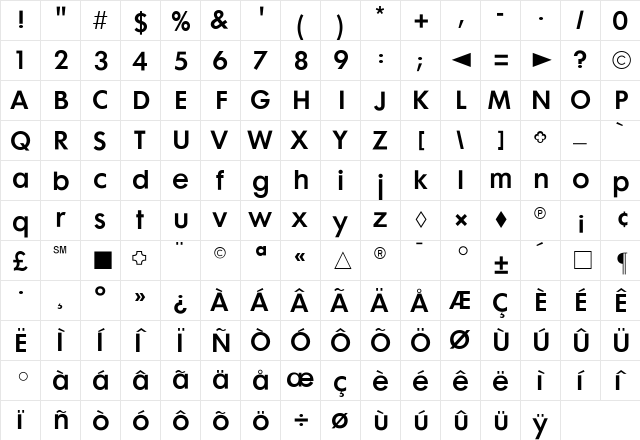
CgFuturaMaxiDe Medium Font Preview
CgFuturaMaxiDe Medium
Design Context for CgFuturaMaxiDe Typeface
CgFuturaMaxiDe has a distinctly futuristic character, with geometric precision and clean angles that feel at home in technology, gaming, and sci-fi contexts.
Pro Tip: Try CgFuturaMaxiDe with generous letter-spacing in UI labels and navigation — the geometric forms benefit from room to breathe.